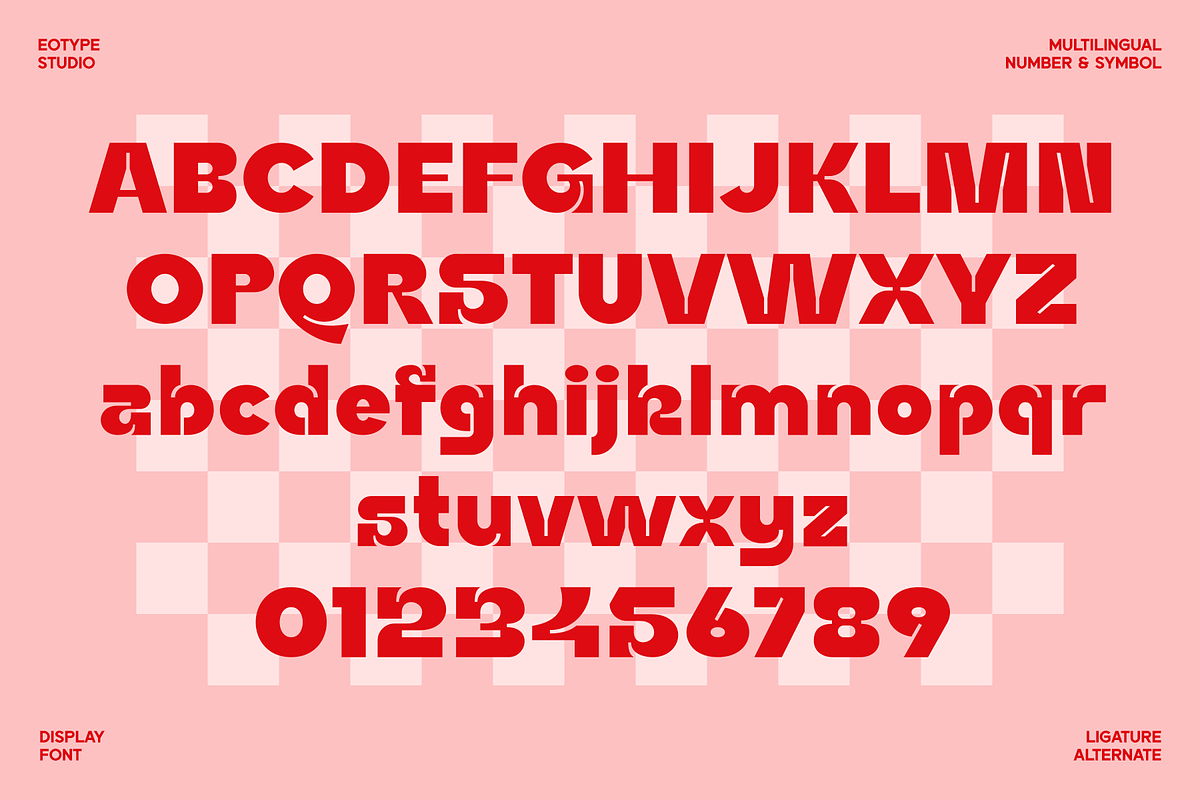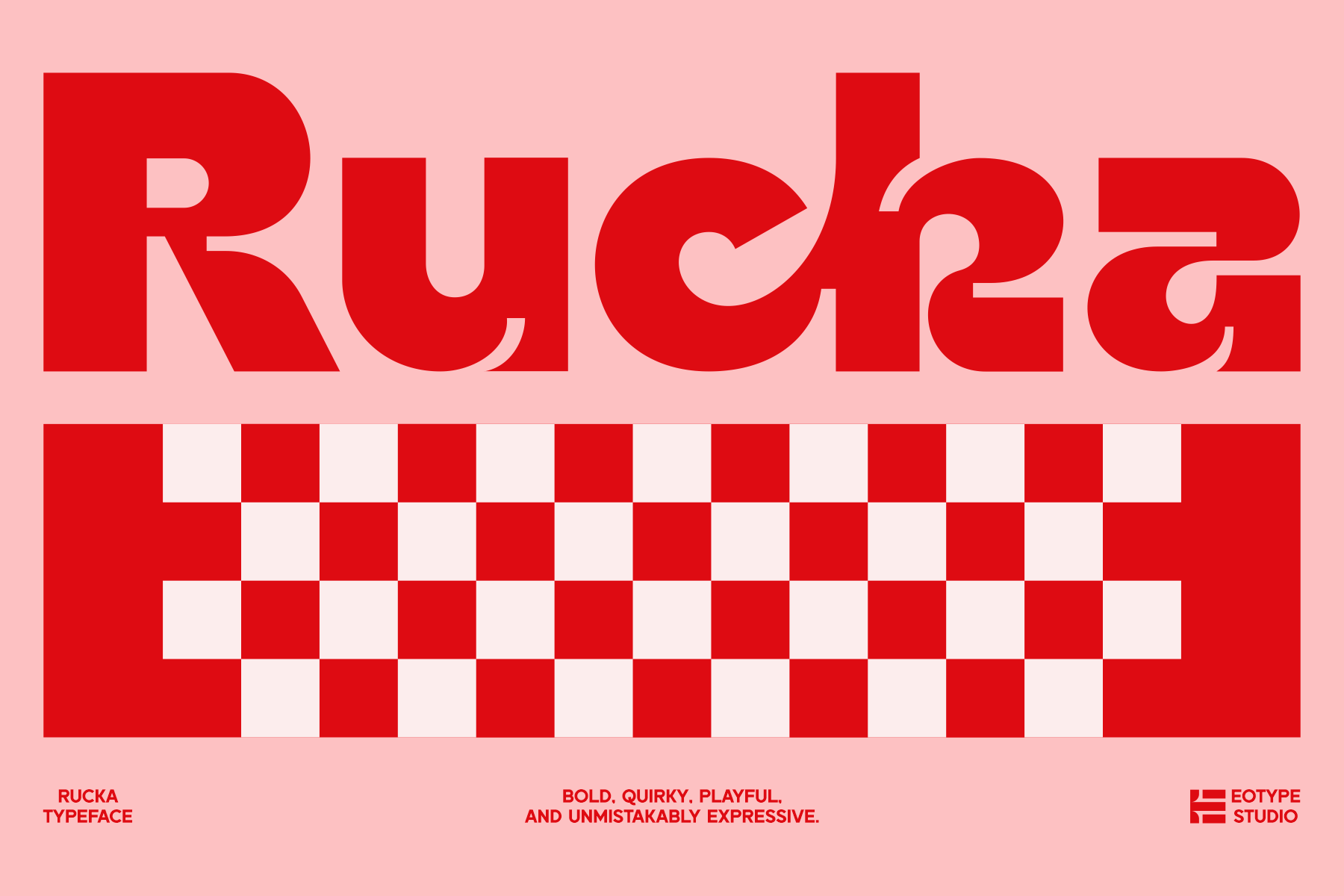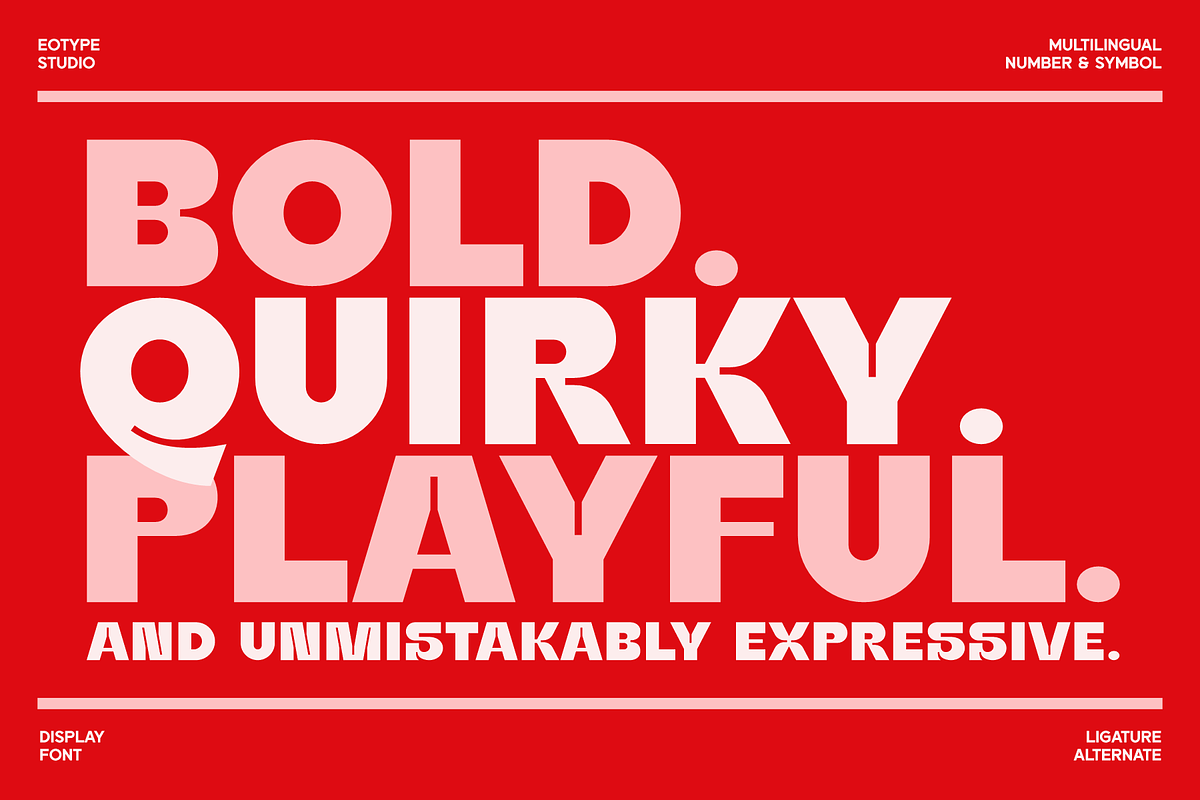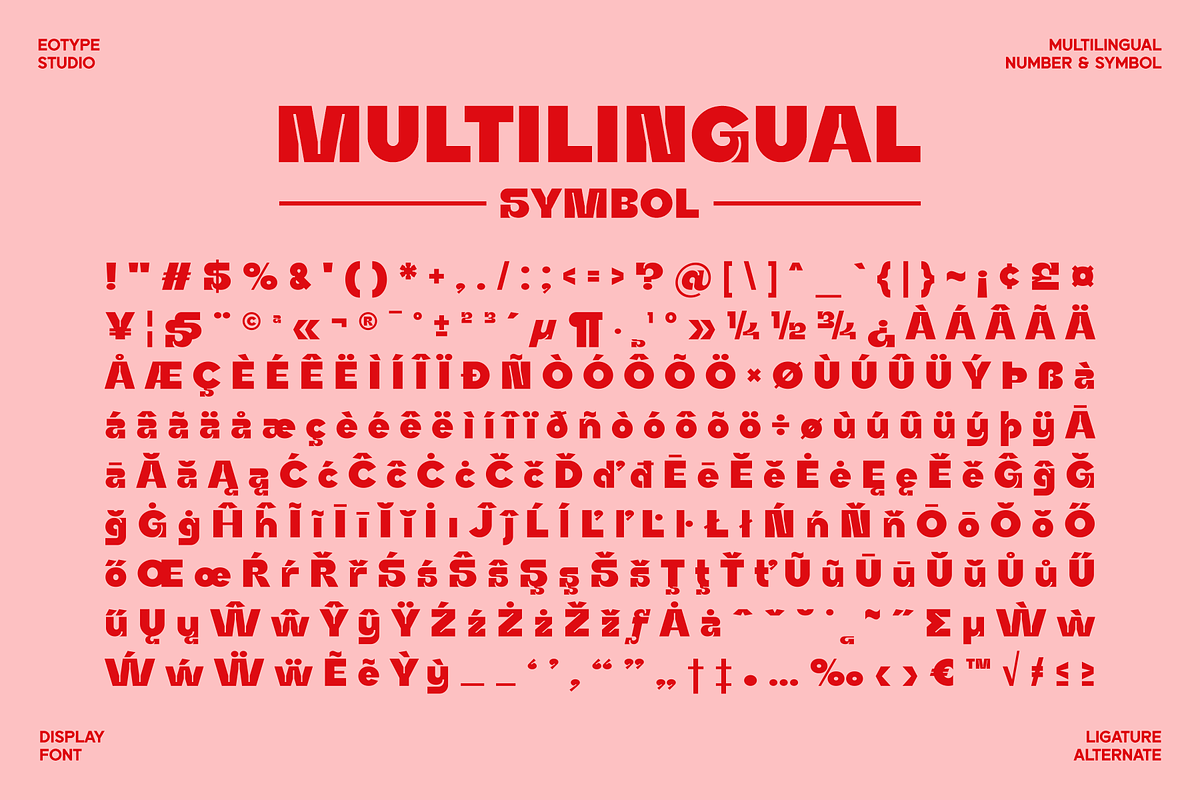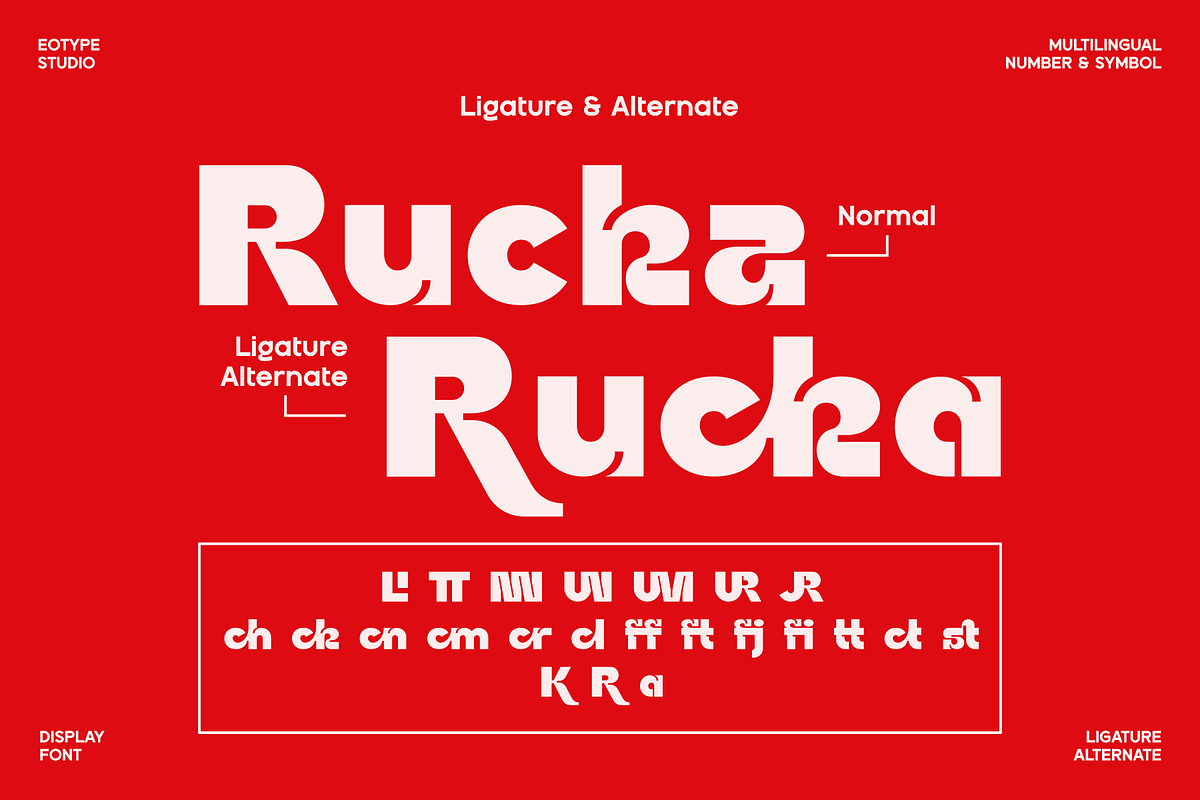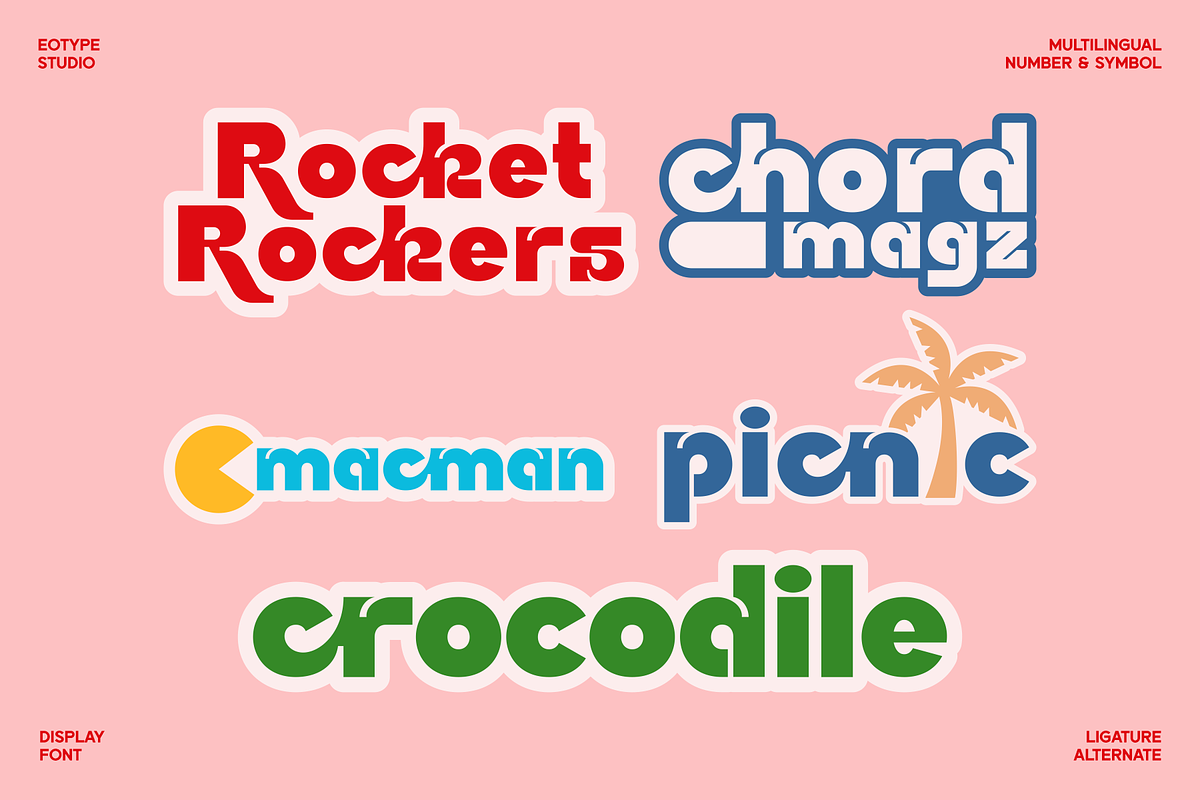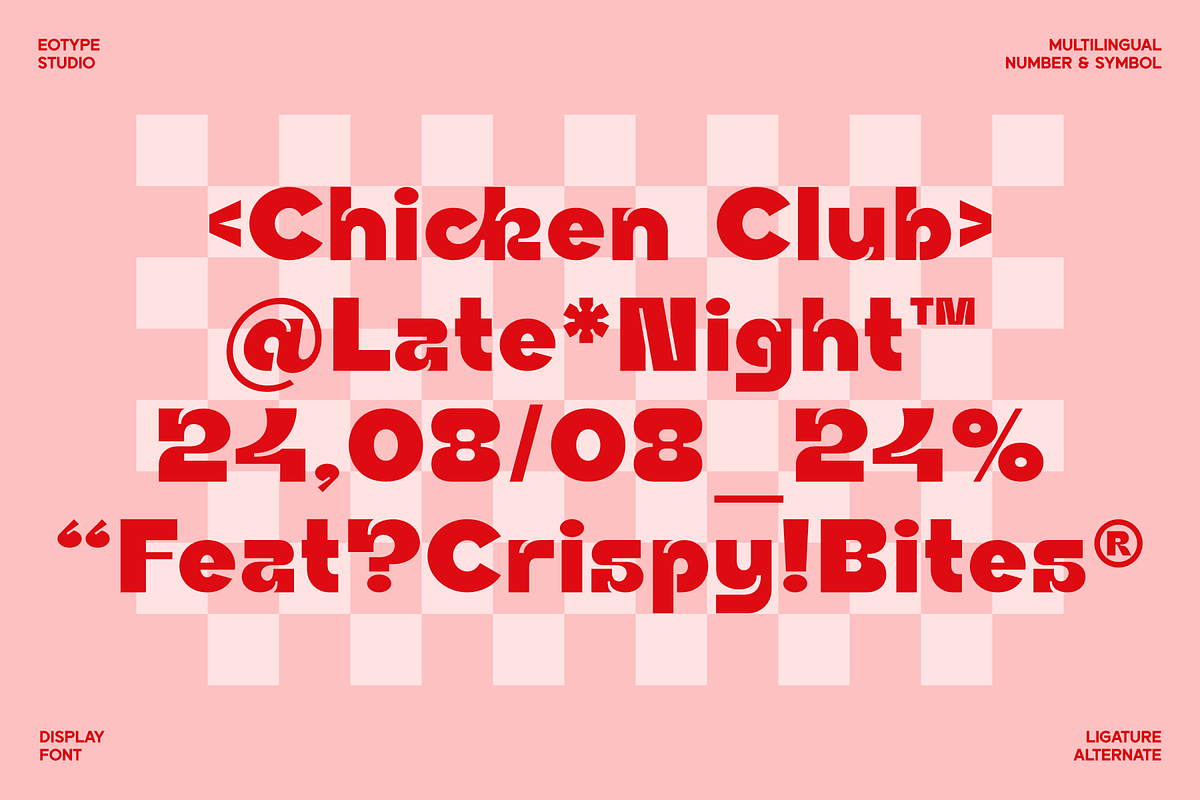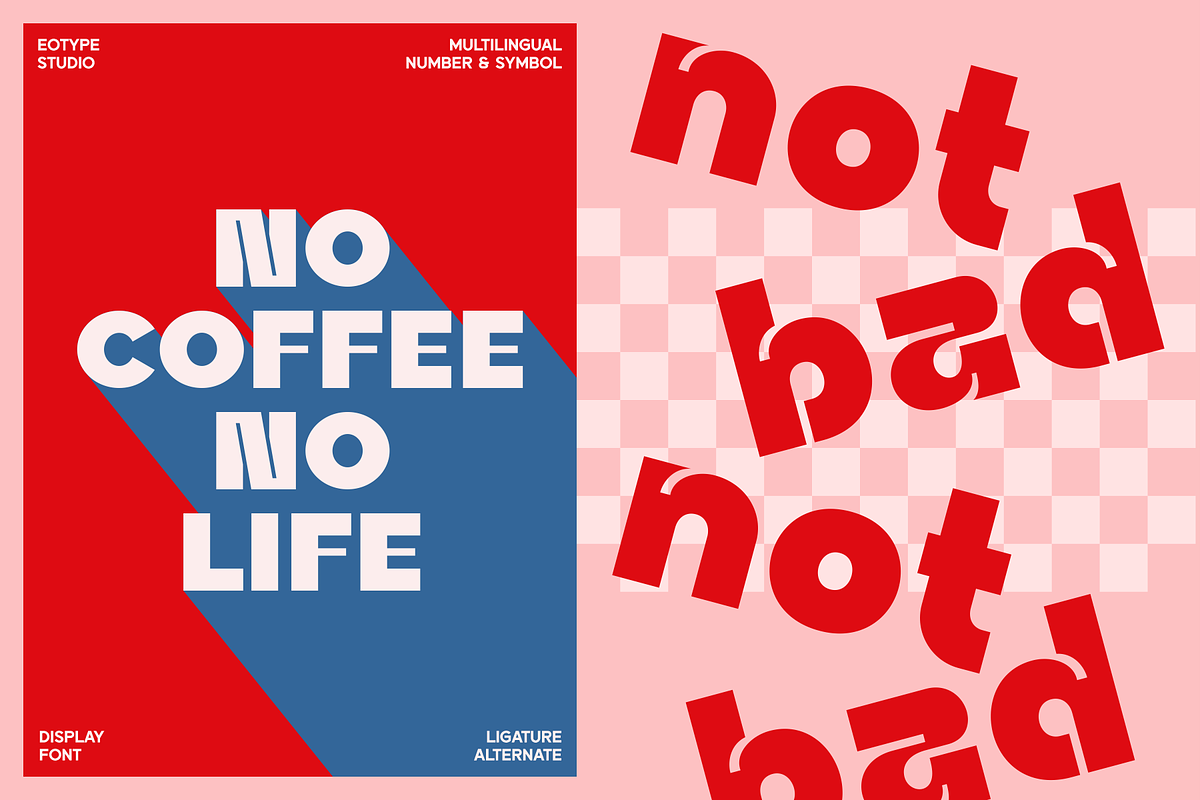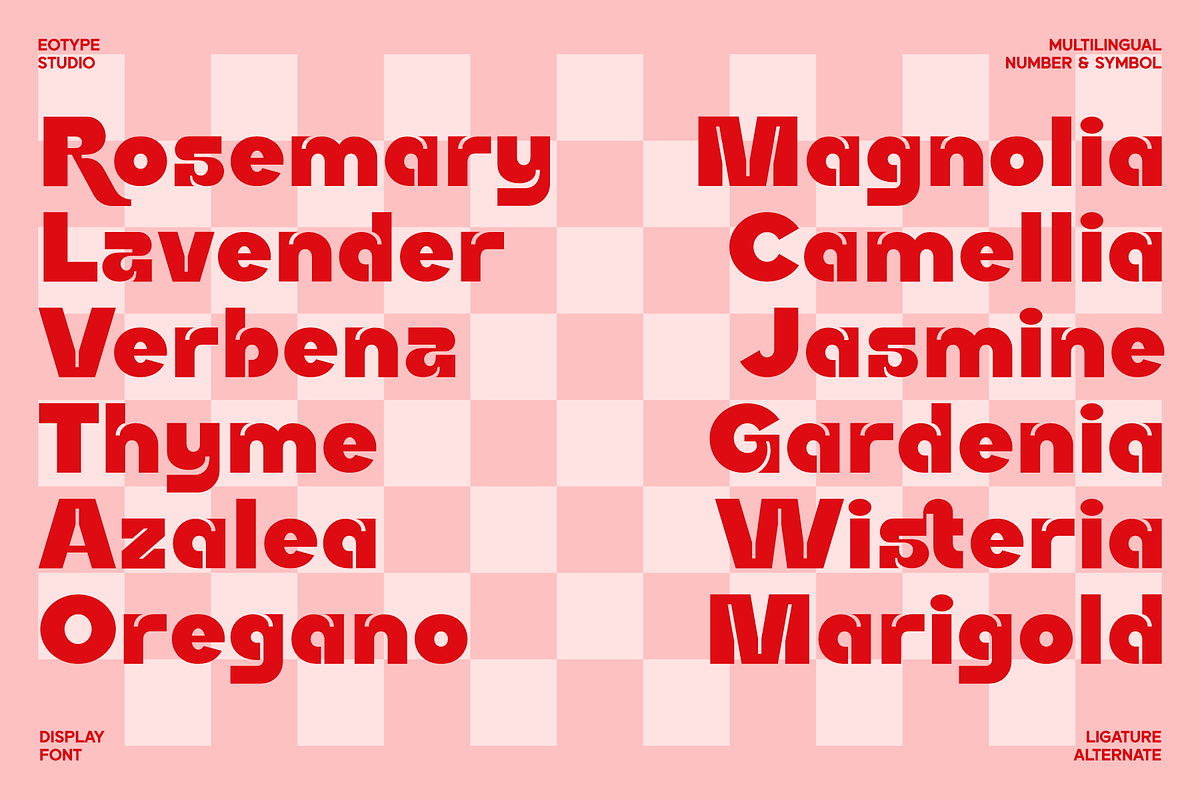
Rucka Display Typeface
Rucka is a bold and playful display typeface designed to bring a strong visual personality to headlines, branding, posters, packaging, and eye-catching graphic compositions.
With its chunky geometric shapes, compact proportions, rounded forms, and distinctive Inktrap details, Rucka creates a unique balance between boldness, quirkiness, and playful energy. Its unconventional letterforms give even simple words a strong graphic presence, making it especially suitable for expressive and experimental typography.
Rucka comes with a selection of uppercase and lowercase characters, numbers, punctuation, symbols, and multilingual support, along with distinctive ligatures and stylistic combinations that add more character and visual variety to your typography.
Whether you're designing a bold logo, streetwear graphics, posters, album artwork, packaging, editorial headlines, or creative branding, Rucka is built to make your type stand out.